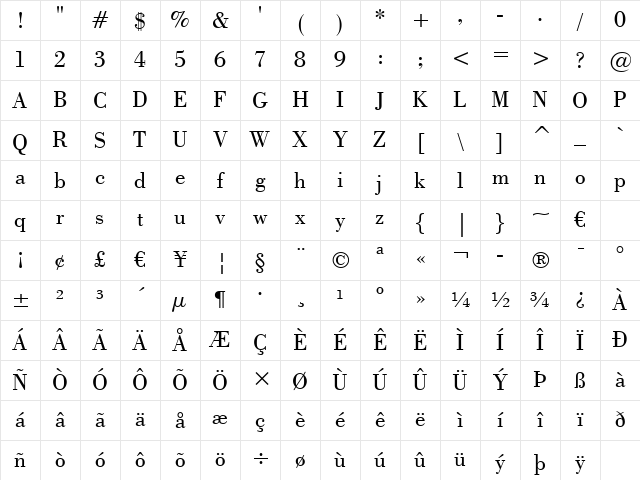
Bodoni Bk BT Book
Design Context for Bodoni Bk BT
Bodoni Bk BT is a composed and adaptable typeface that performs quietly and consistently across a wide range of design contexts.